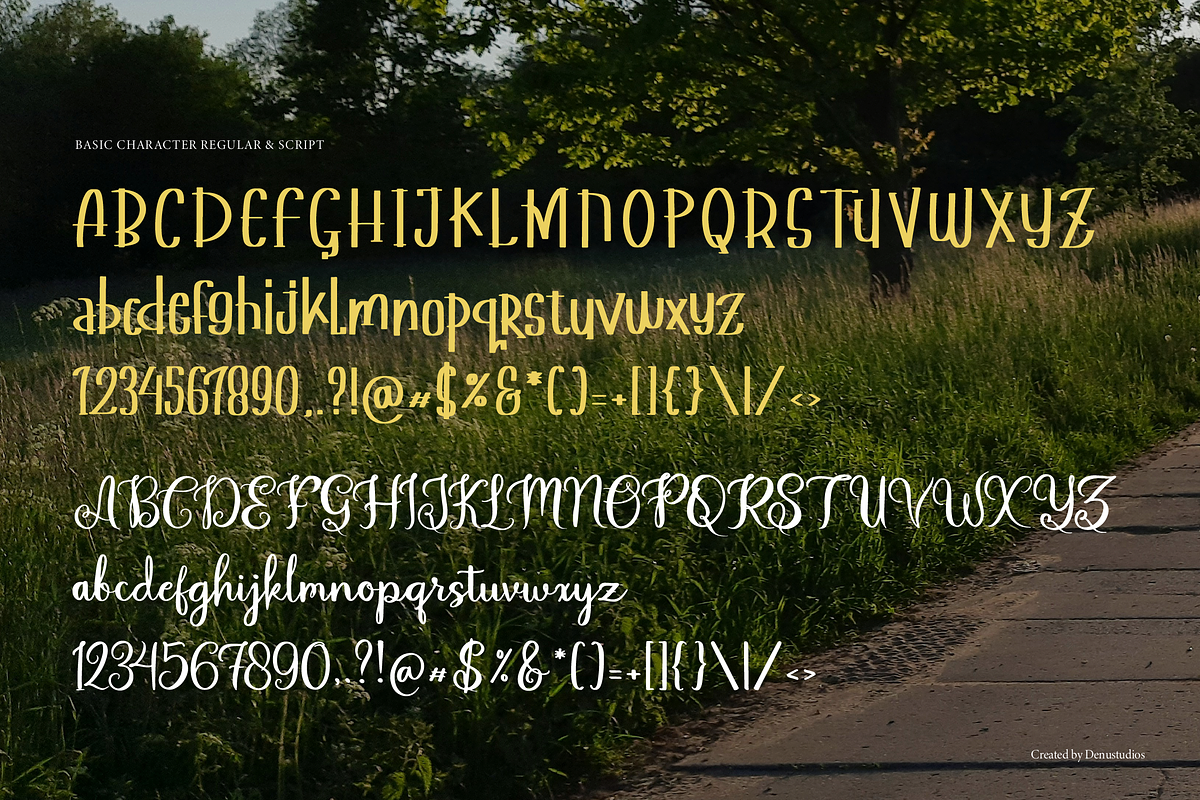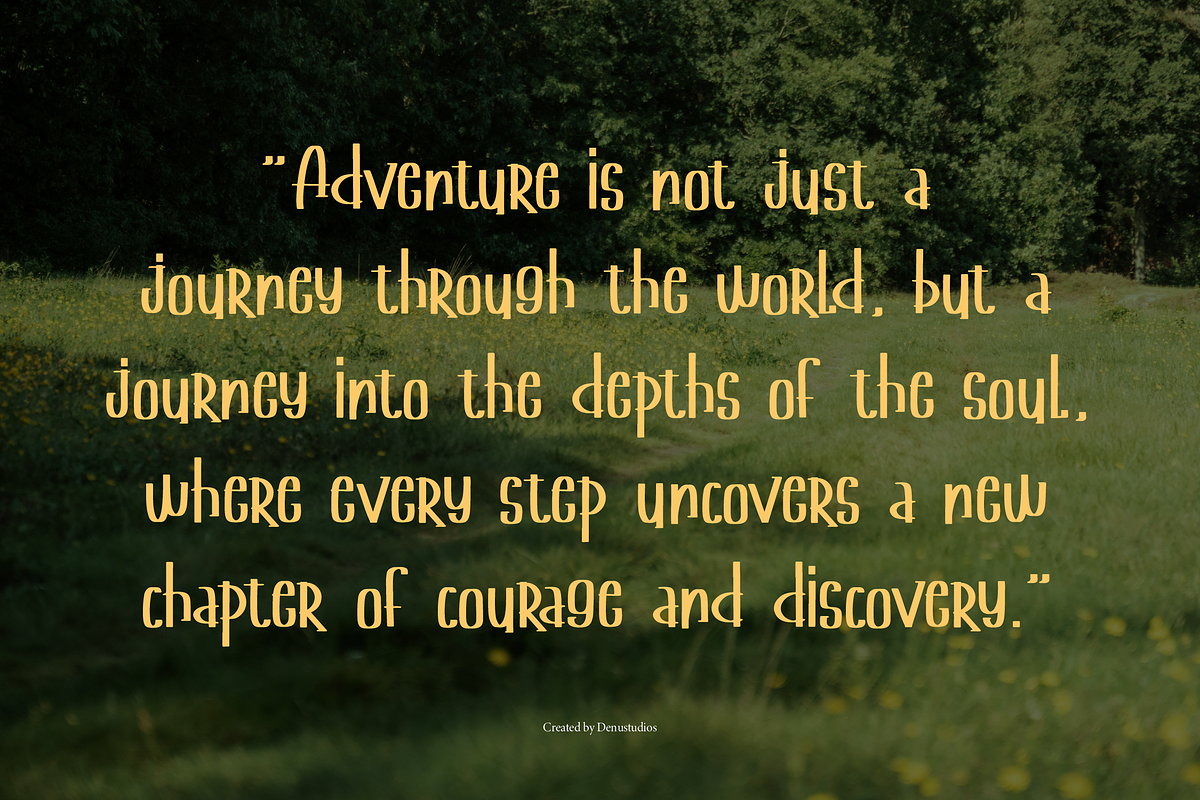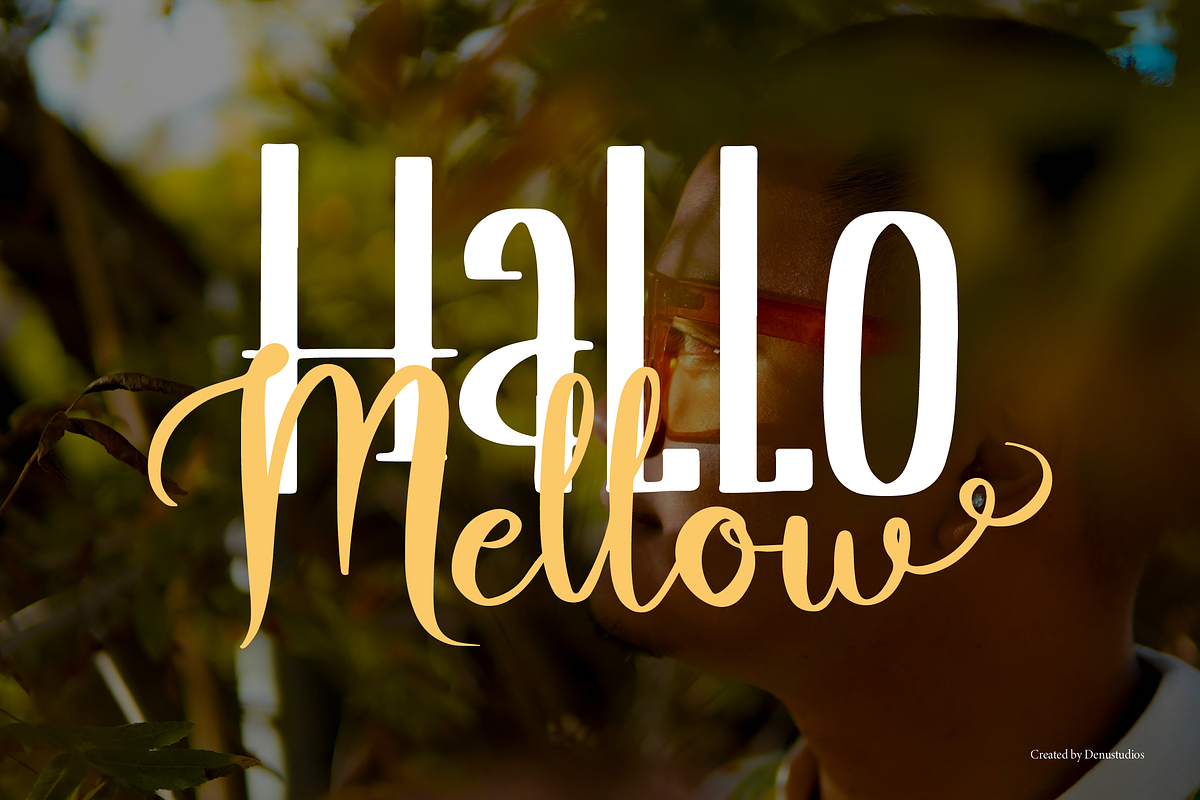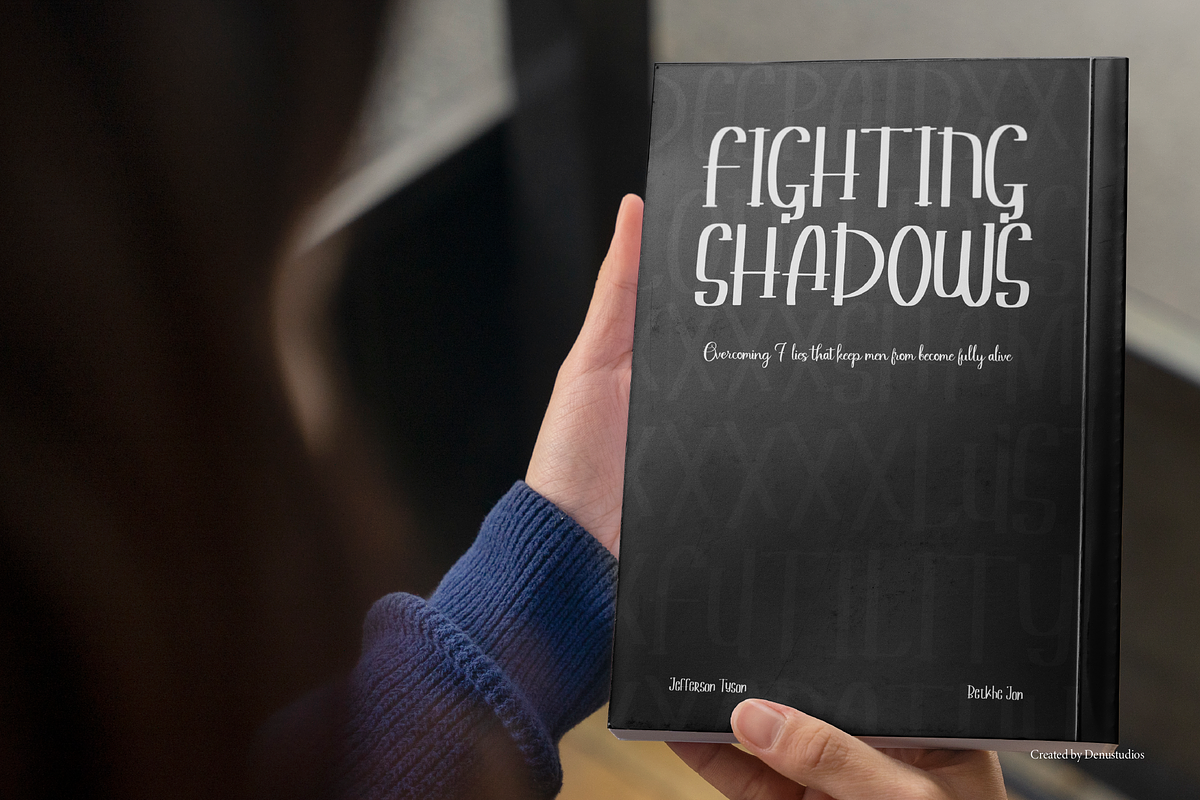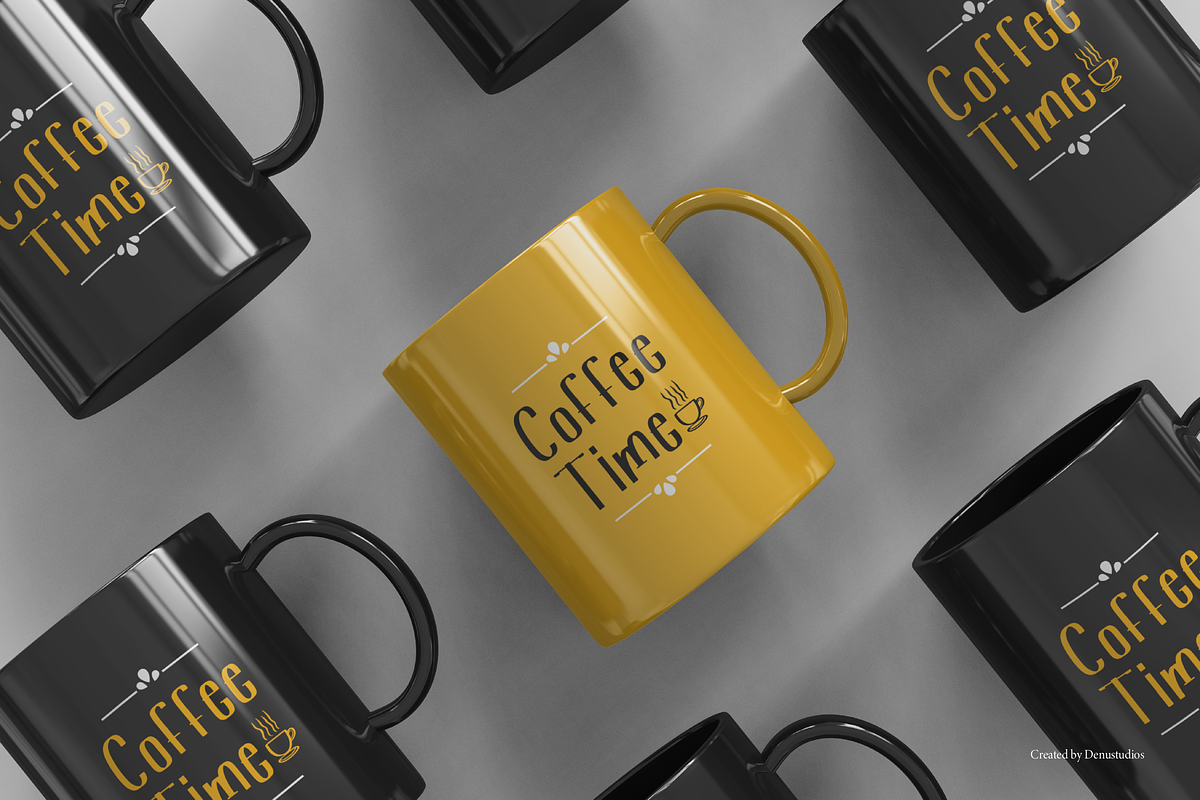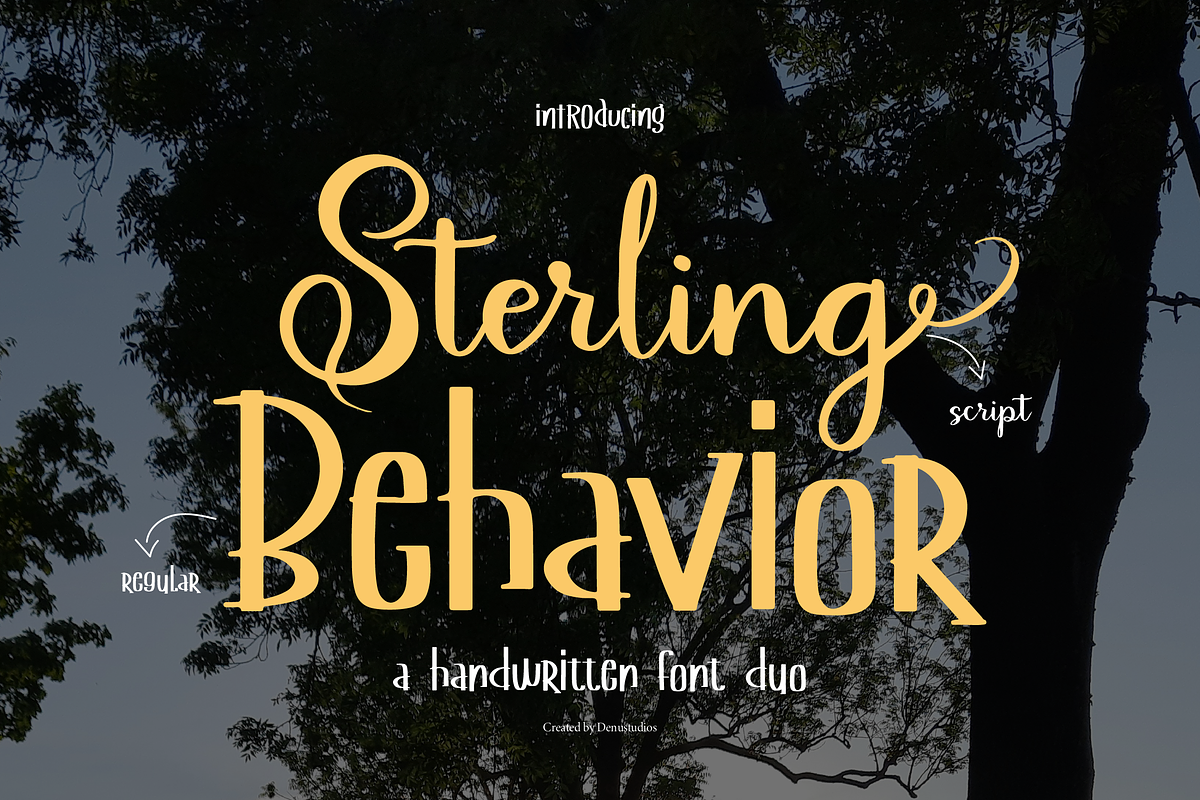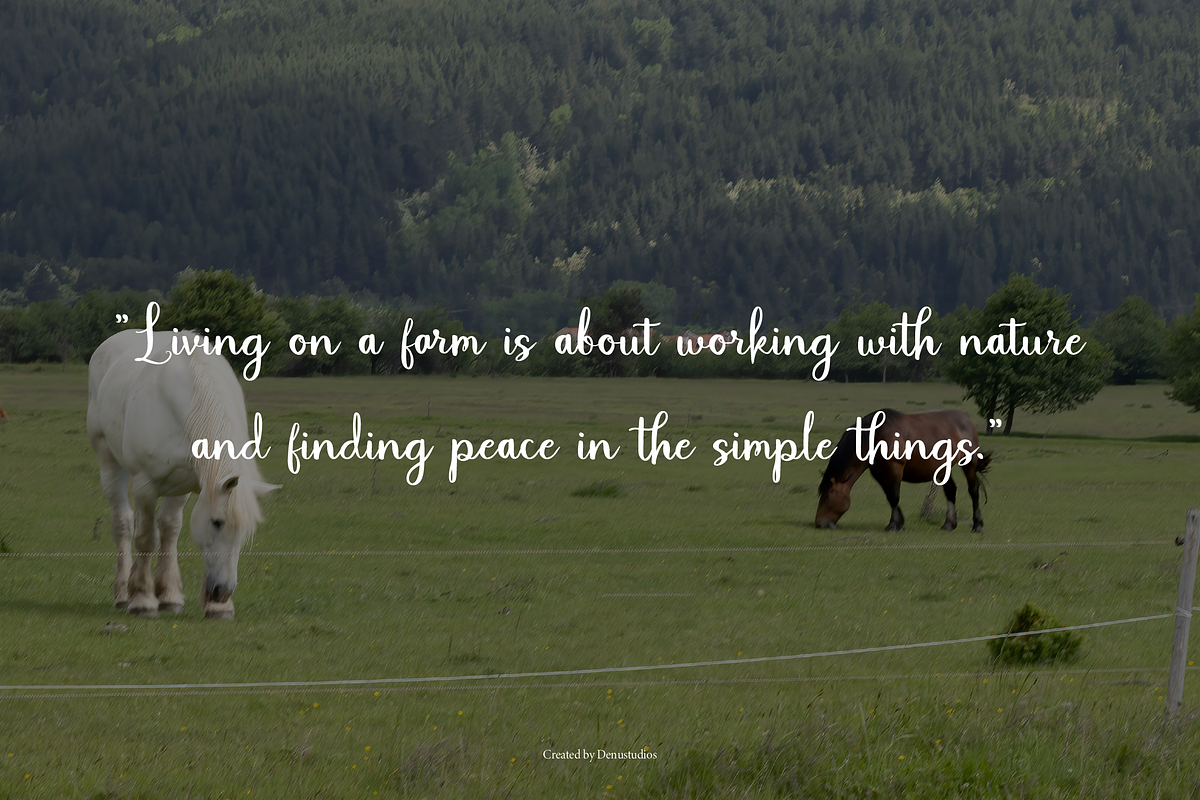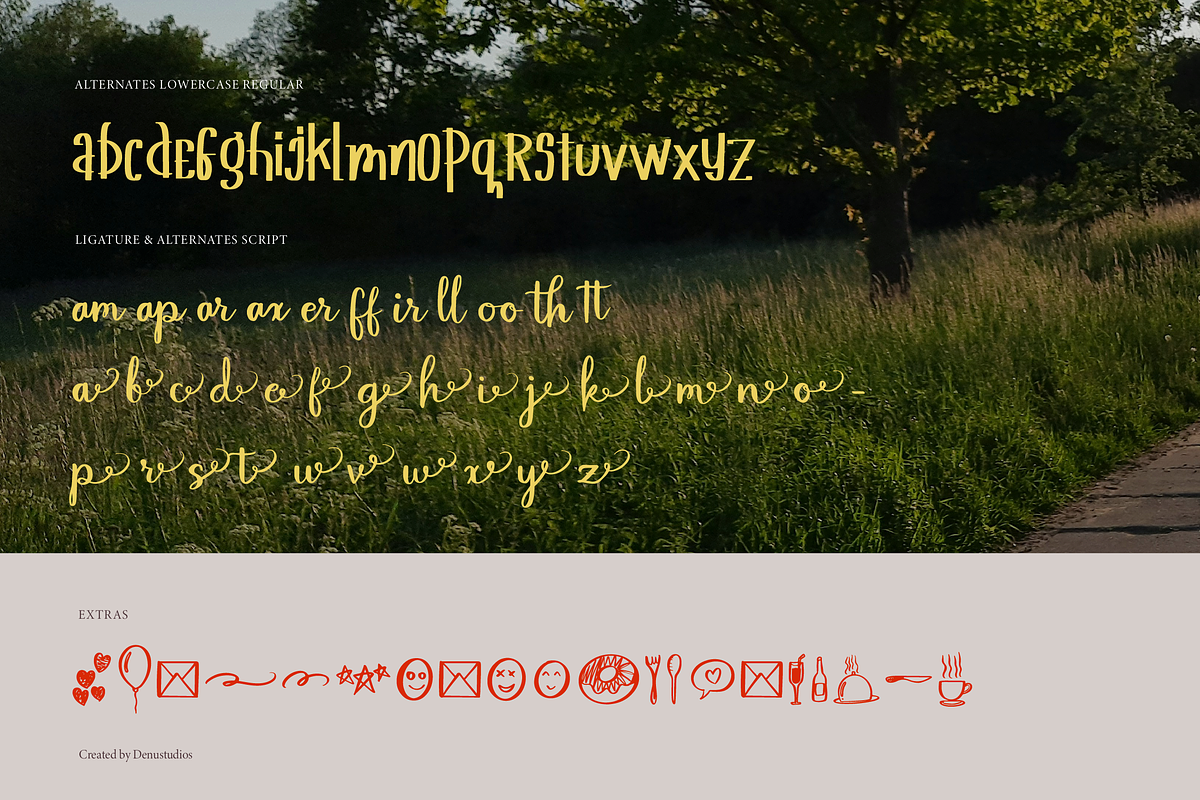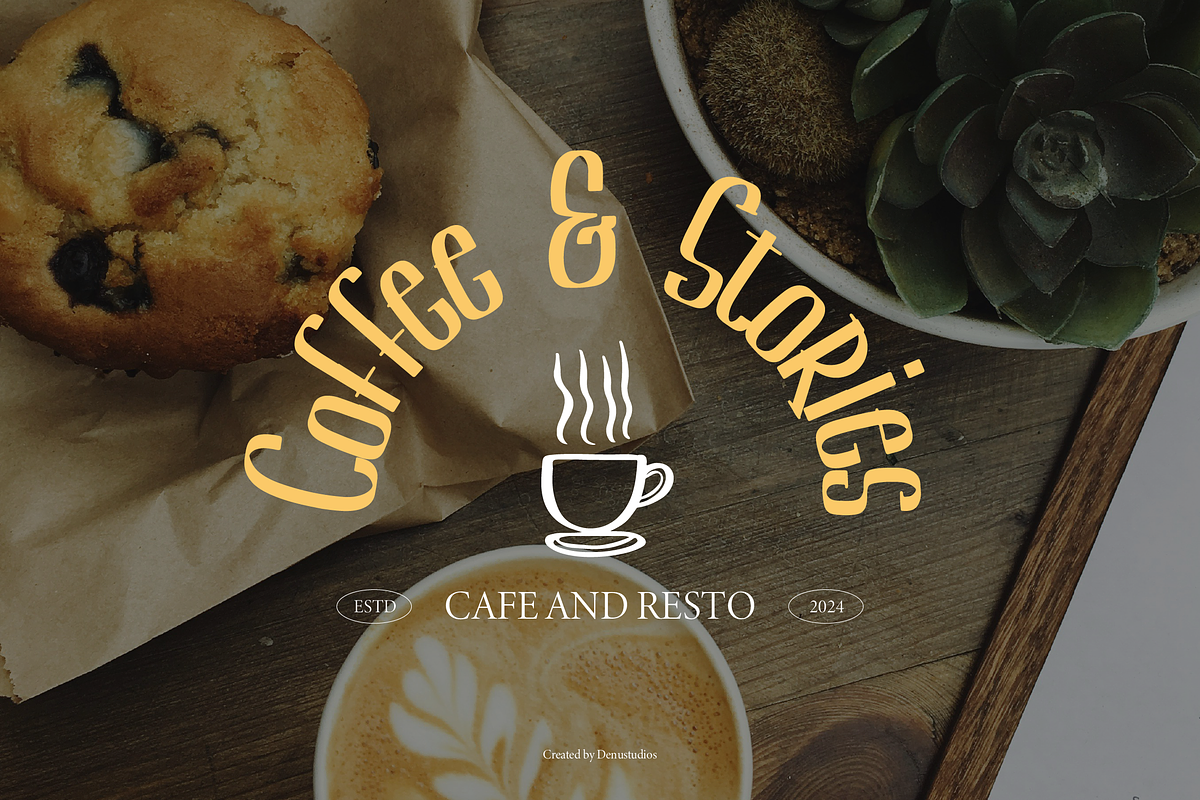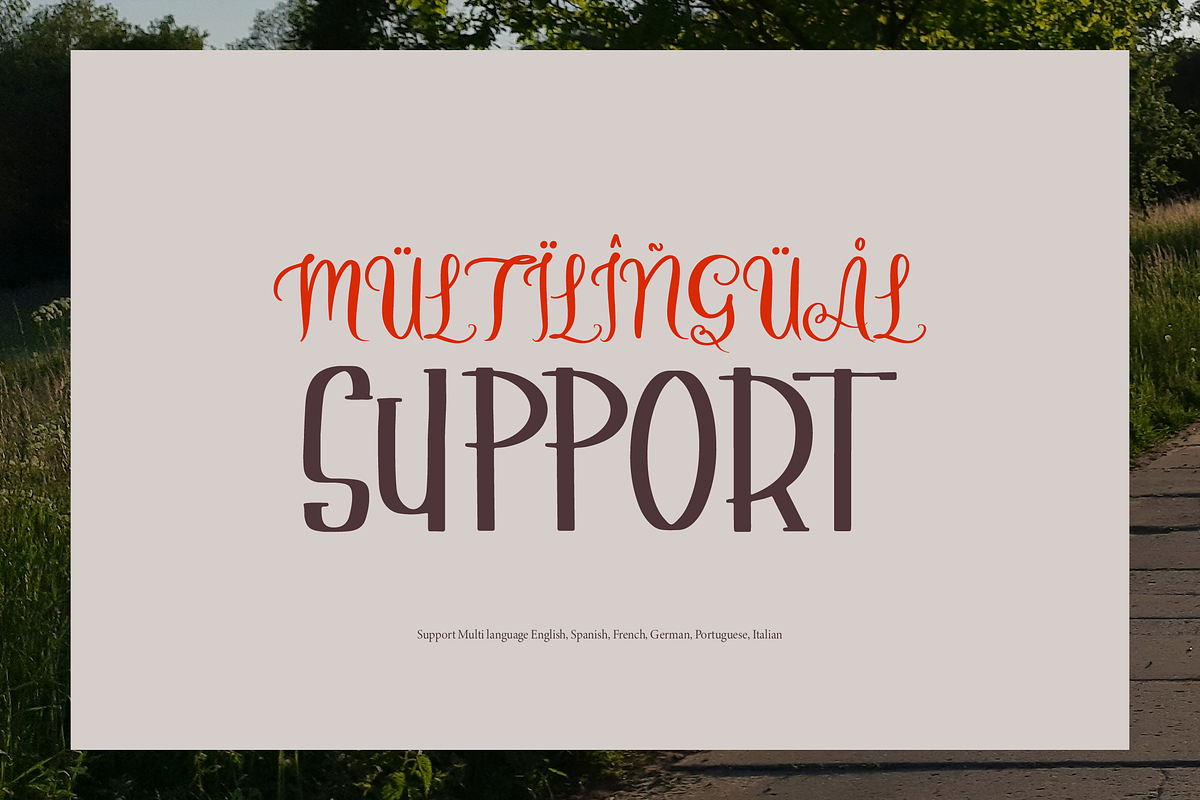
Sterling Behavior | Handwritten Duo
Sterling Behavior | Handwritten Font Duo, from Denustudios, suitable for any projects such as: logos, branding projects, homeware designs, product packaging, mugs, quotes, posters, shopping bags, t-shirts, book covers, name card, invitation cards, greeting cards, label, photography, watermark, special events, and all your other lovely projects that need a Handwritten Font Duo taste.